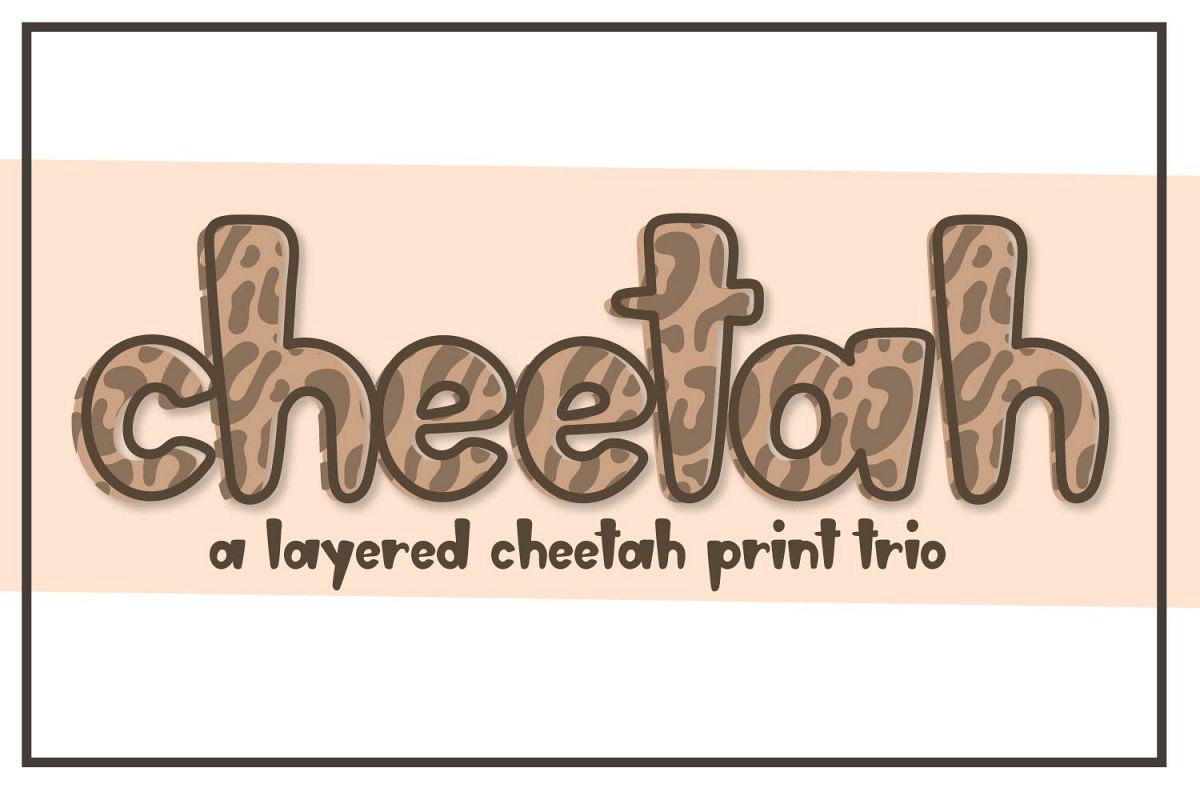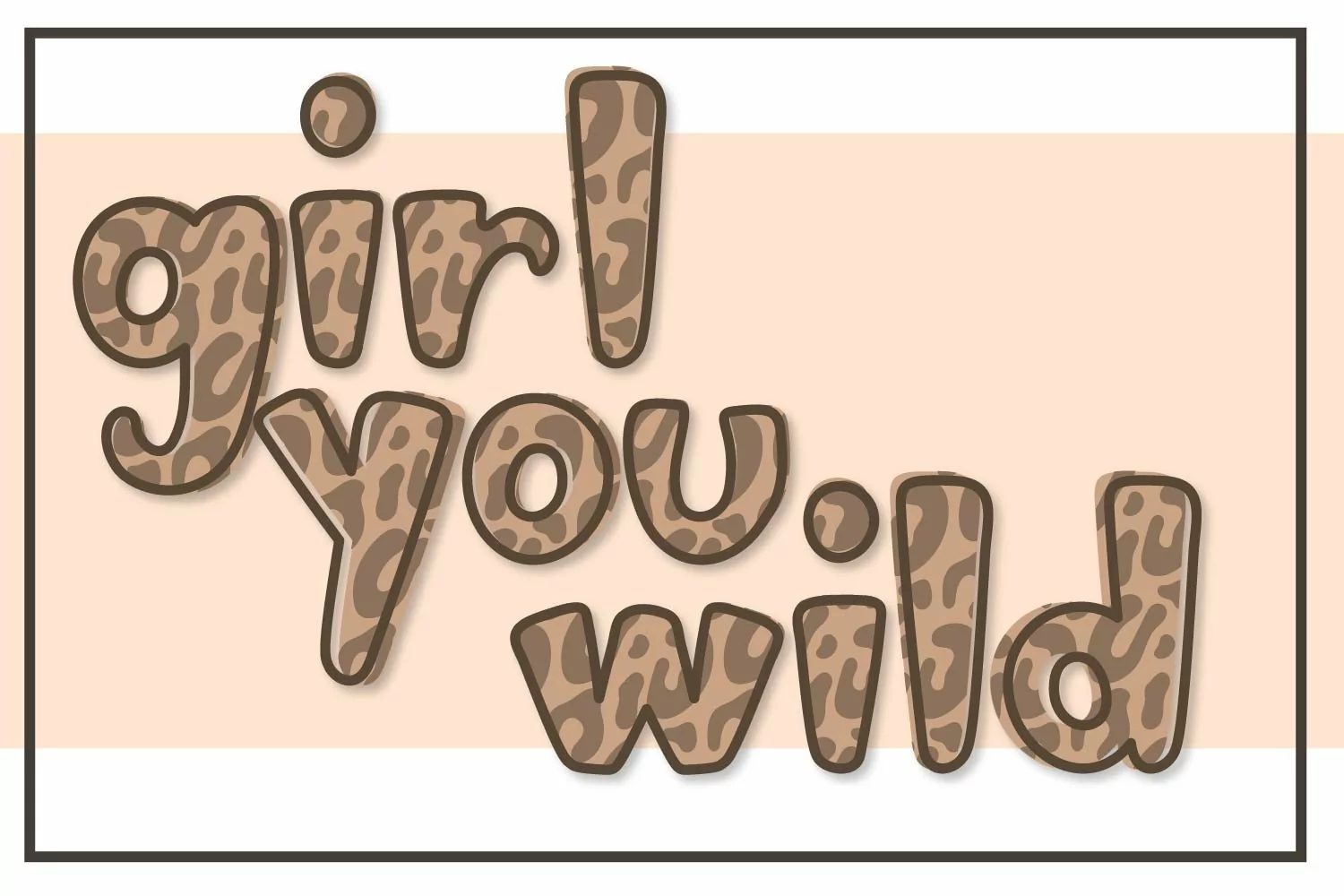
Cheetah - A Layered Cheetah Print Trio
To use this in the way shown, you'll need access to a program that allows you to overlap and color separate layers of text.